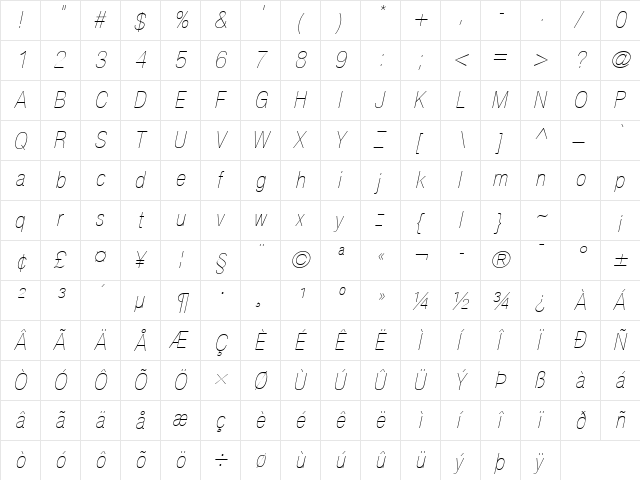
Helvetica Neue LT Com 27 Ultra Light Condensed Oblique Font Preview
| Style | 27 Ultra Light Condensed Oblique |
| Foundry | Linotype GmbH |
| Designer | Linotype Design Studio |
Design Context for Helvetica Neue LT Com Typeface
Helvetica Neue LT Com is a composed and adaptable typeface that performs quietly and consistently across a wide range of design contexts. Its italic angle brings a sense of urgency and motion to the letterforms. The delicate stroke weight brings airiness and refinement to layouts. Its narrow stance lets it pack a punch even in space-constrained designs.
Pro Tip: Use Helvetica Neue LT Com for emphasis, pull quotes, and subheadings where its slanted energy can add rhythm to the layout.